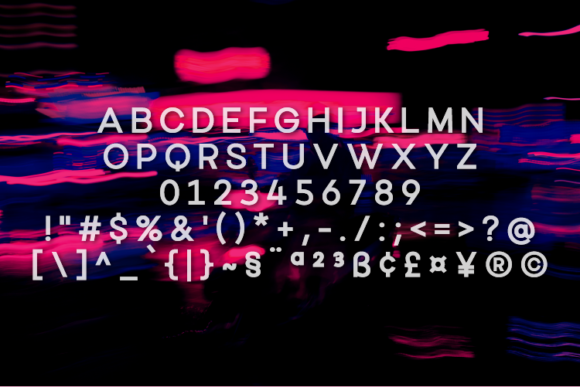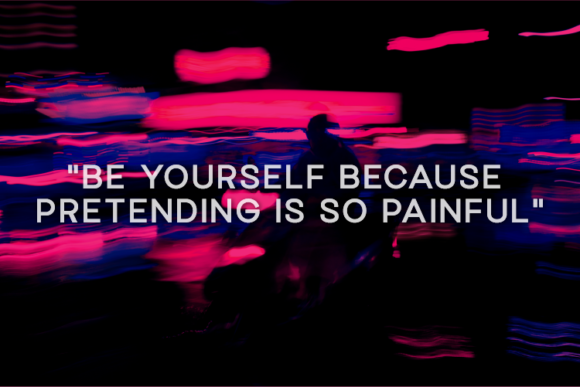
Awelome Font: Elevate Your Designs with a Clean and Neat Sans Serif
Are you on the hunt for a font that can effortlessly elevate your creative projects? Look no further than Awelome, a stunning sans serif font that is both clean and neat. With its versatility and wide range of applications, Awelome is the perfect addition to any designer’s toolkit. In this article, we’ll dive into the world of Awelome and explore how it can make your designs stand out.
What is Awelome Font?
Awelome is a modern sans serif font that boasts a sleek and sophisticated aesthetic. Its clean lines, simple shapes, and uncluttered design make it an excellent choice for a wide range of projects, from branding and advertising to packaging and digital media. Whether you’re a seasoned designer or a crafty DIY enthusiast, Awelome is an excellent addition to your font collection.
Key Features of Awelome Font
- Clean and Neat Design: Awelome’s sans serif design ensures that your text remains clear and legible, even at small font sizes.
- Versatility: Awelome can be used in a wide range of projects, from print materials like brochures and posters to digital media like websites and social media graphics.
- Ease of Use: Awelome is incredibly easy to use, making it perfect for designers and non-designers alike.
- Highly Legible: Awelome’s simple and uncluttered design ensures that your text is always easy to read.
How to Use Awelome Font in Your Designs
Awelome is an incredibly versatile font that can be used in a wide range of design projects. Here are a few ideas to get you started:
- Branding and Logo Design: Use Awelome to create a clean and modern logo that perfectly represents your brand.
- Print Materials: Awelome is perfect for print materials like brochures, posters, and business cards.
- Digital Media: Use Awelome to create stunning digital media, including website headers, social media graphics, and email newsletters.
- Crafting and DIY Projects: Awelome is also perfect for crafty DIY projects, such as handmade cards, scrapbooking, and journaling.
Why Choose Awelome Font?
With so many fonts available, why choose Awelome? Here are just a few reasons why Awelome stands out from the crowd:
- Unique and Modern Design: Awelome’s clean and neat design ensures that your projects look modern and fresh.
- Easy to Read: Awelome’s highly legible design ensures that your text is always easy to read.
- Versatile: Awelome can be used in a wide range of projects, making it an excellent addition to any font collection.